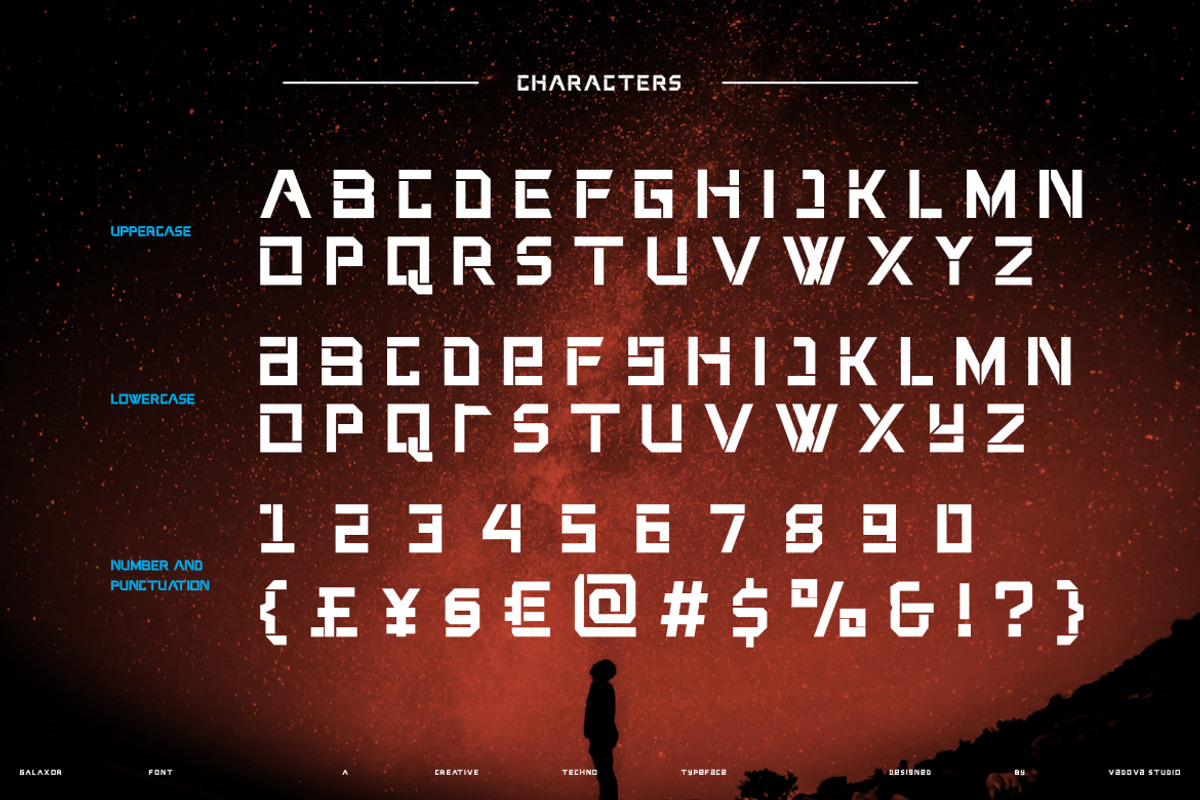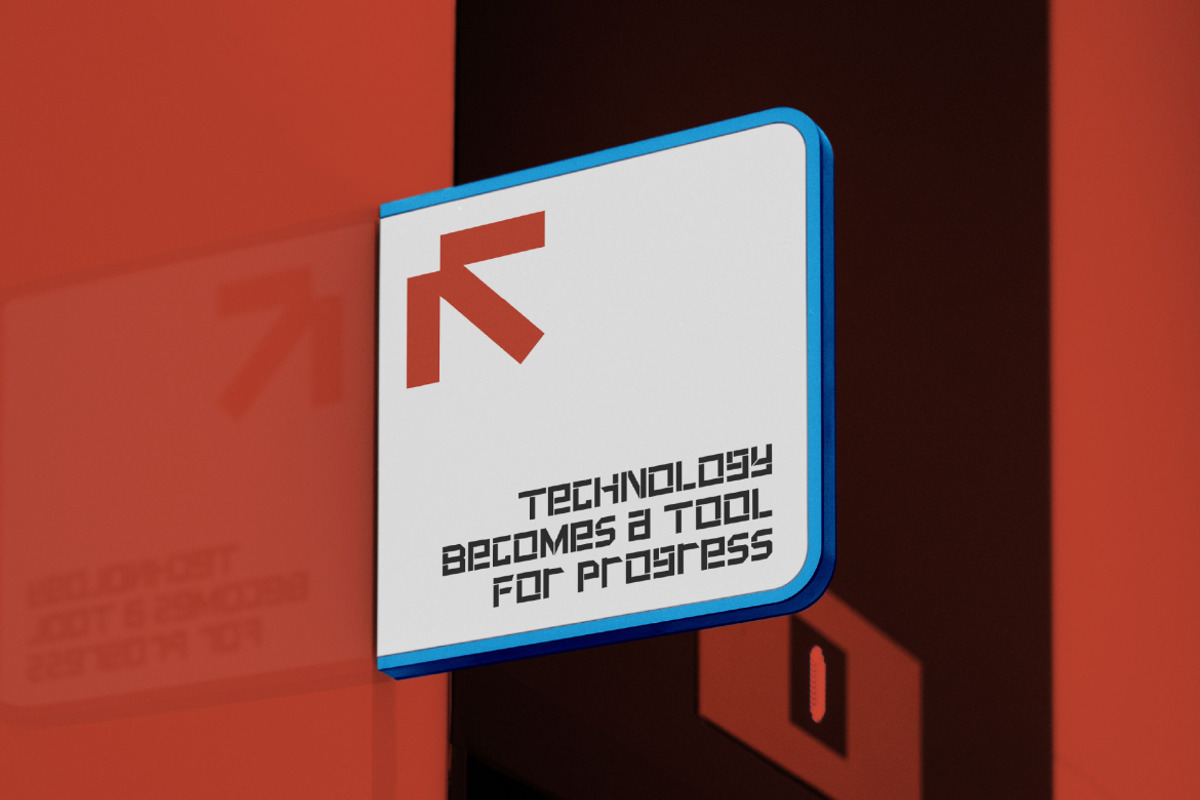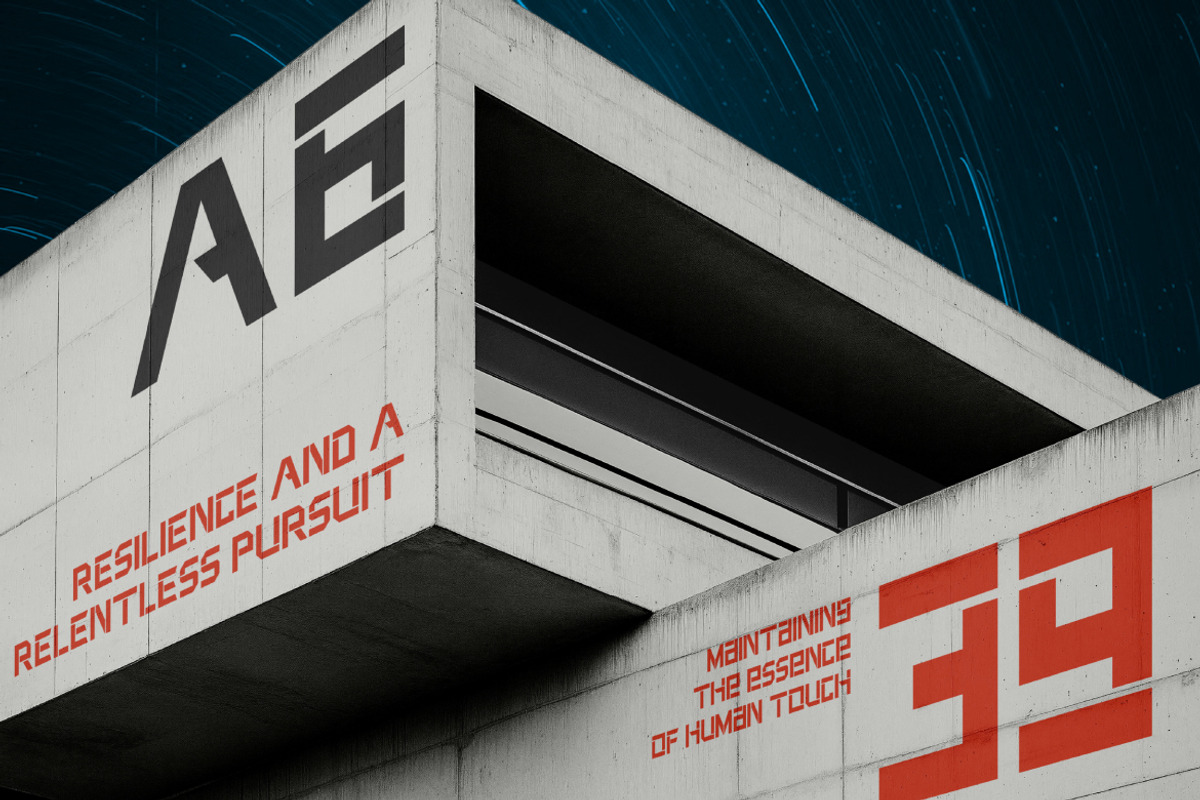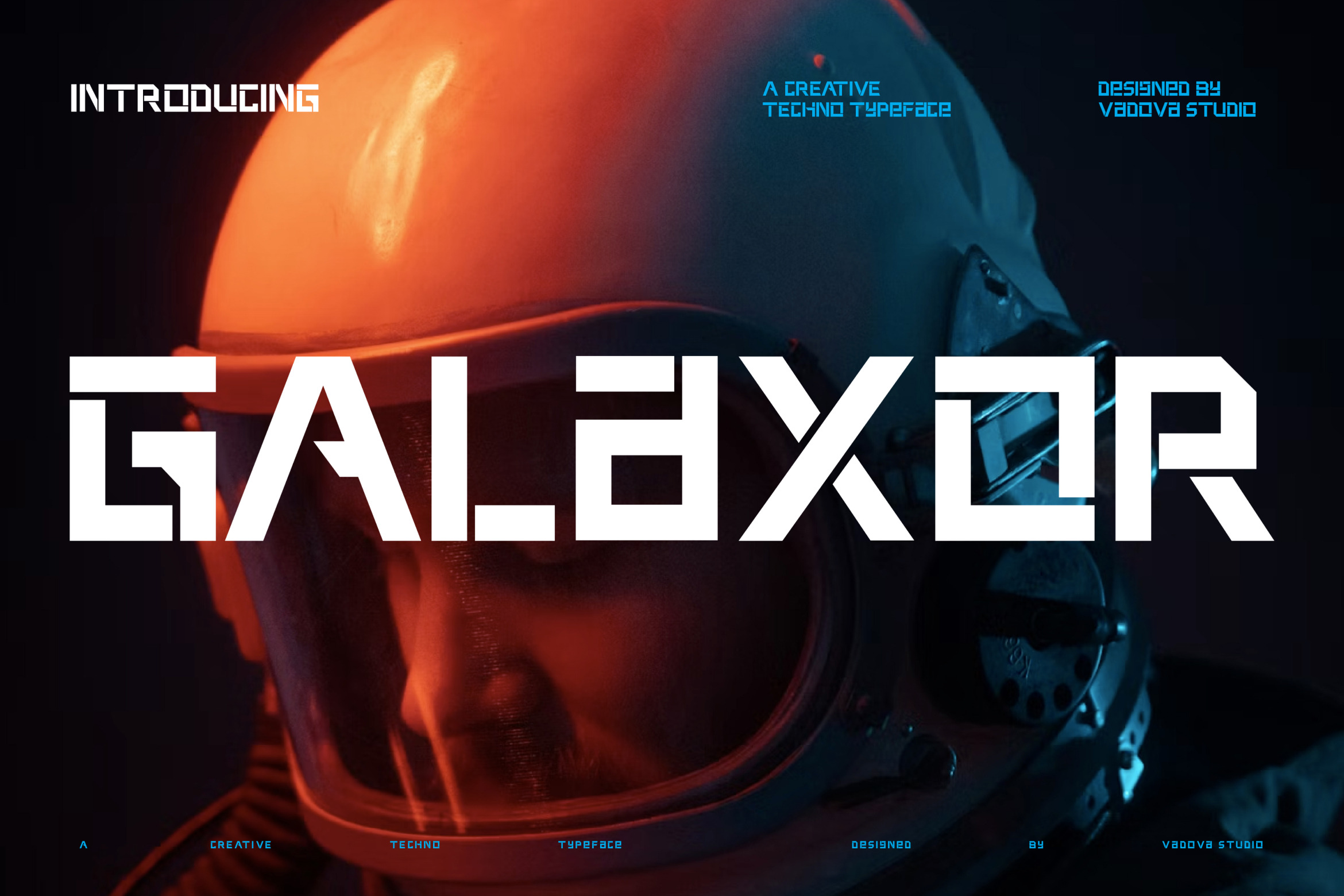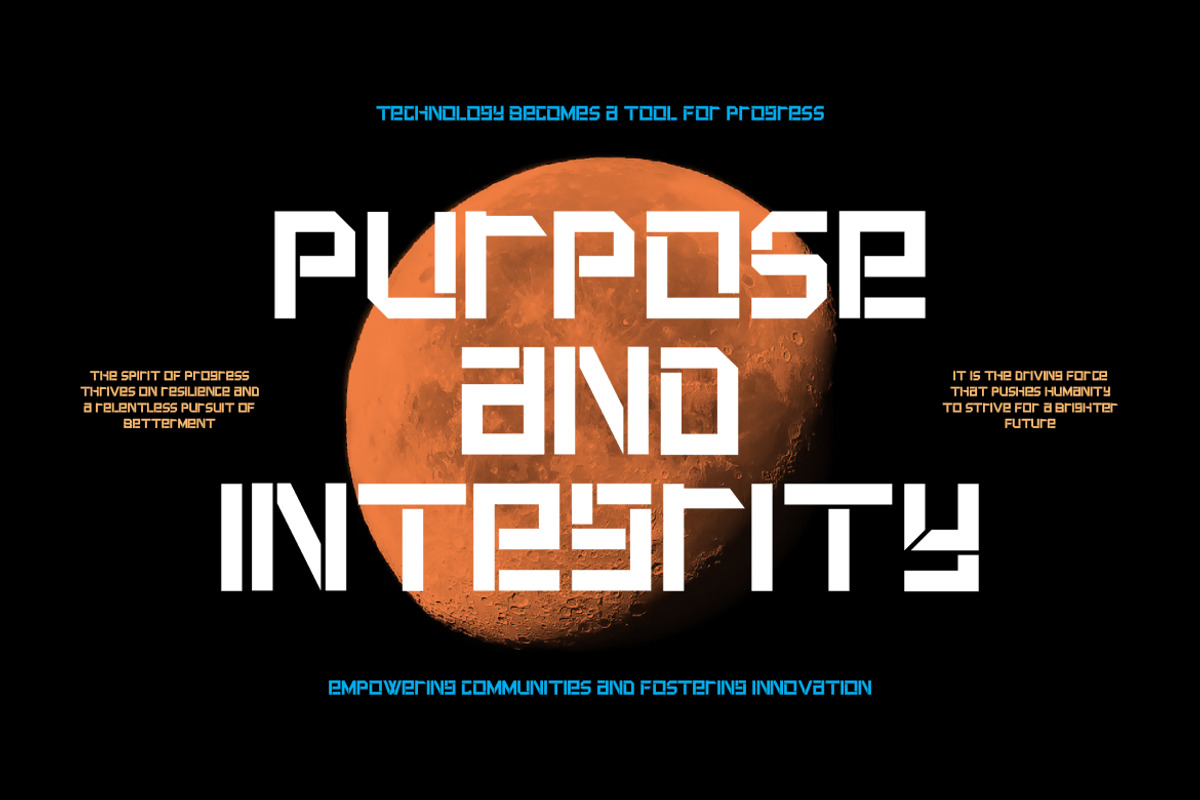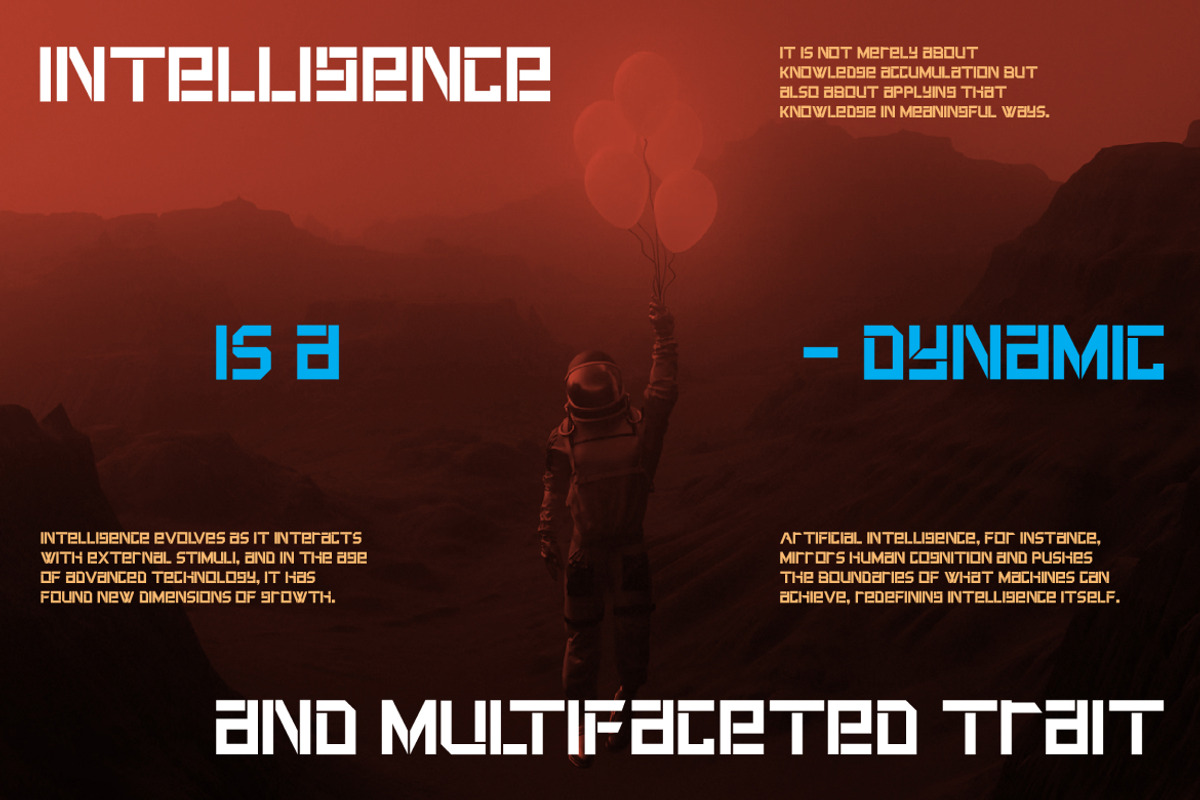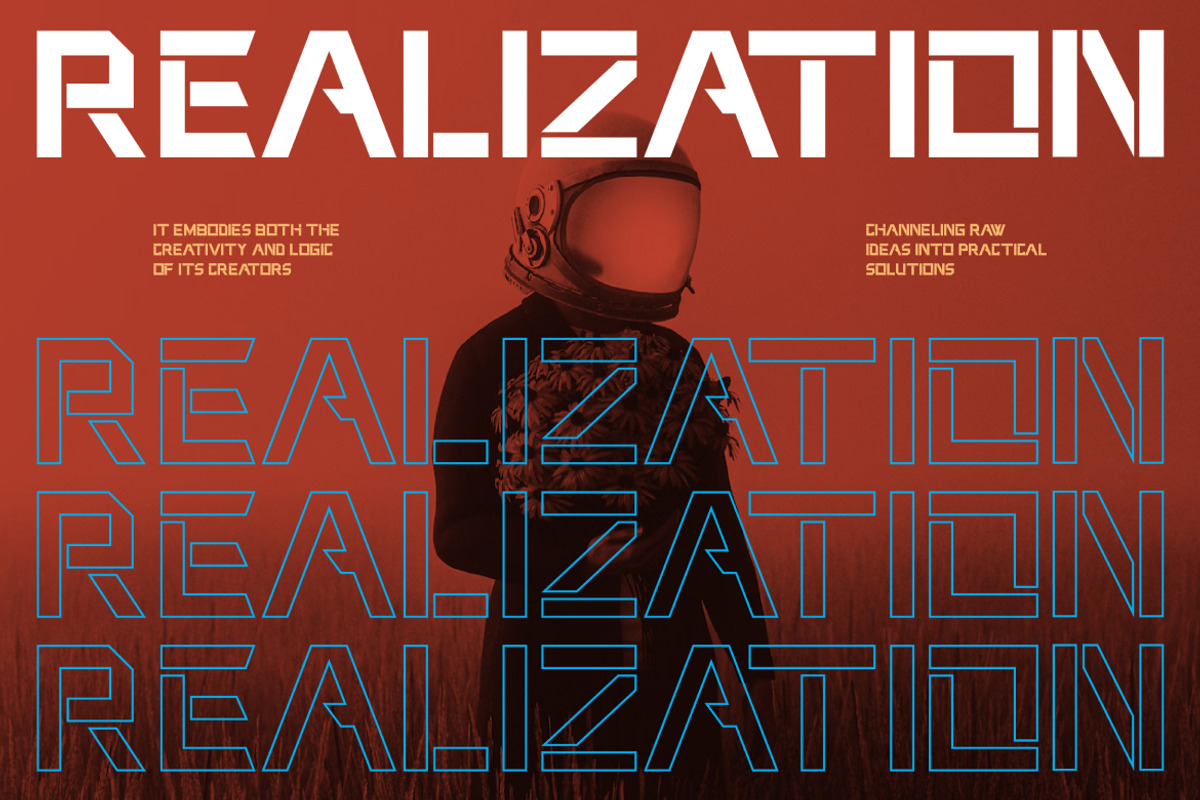
Galaxor Futuristic Techno Font
Galaxor is a futuristic techno display typeface inspired by space exploration, digital systems, and geometric precision. Built with angular cuts and modular letterforms, Galaxor delivers a strong sci-fi presence that embodies innovation and power.
Its sharp geometry and symmetrical rhythm make it ideal for bold visual design, where every character feels engineered for impact. From gaming titles to sci-fi posters, Galaxor stands out with its distinctive, space-age personality — perfectly blending modern technology and creative design.
- Futuristic techno display typeface with modular construction
- Strong geometric and angular cuts for digital and sci-fi aesthetics
- Bold uppercase and lowercase sets for high-impact design
- Inspired by cybernetics, aerospace, and mechanical precision
- Includes numerals and punctuation
- Works perfectly for sci-fi titles, UI/UX, and futuristic branding
- Great for posters, gaming logos, and film design projects
- Delivers strong readability even at large display sizes
- Designed for tech innovators and modern creatives
Relevance and Use Cases is perfect for sci-fi movie titles, futuristic branding, tech startup logos, gaming interfaces, digital posters, esports visuals, and experimental design systems.